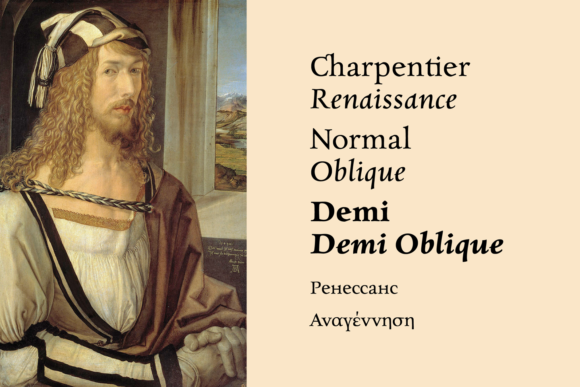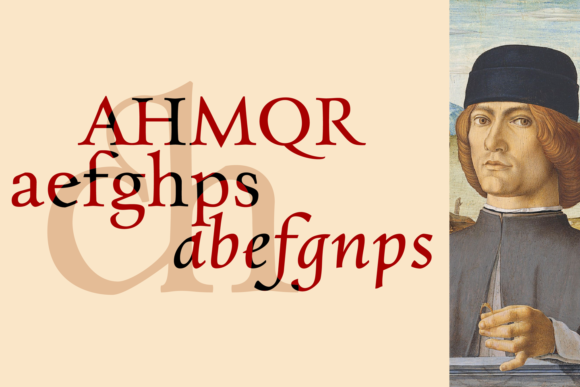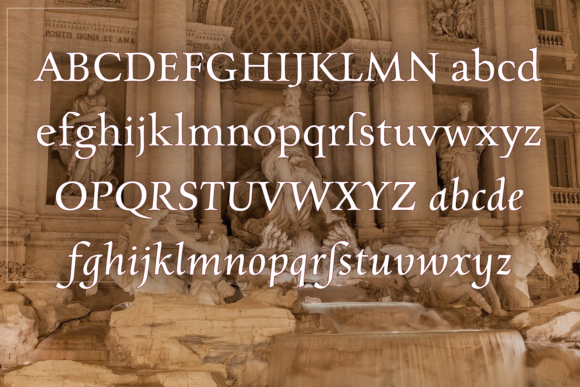
Introduction to Charpentier Renaissance Pro Font
Charpentier Renaissance Pro is a unique and iconic serif font with a bold feel.
Key Features of Charpentier Renaissance Pro Font